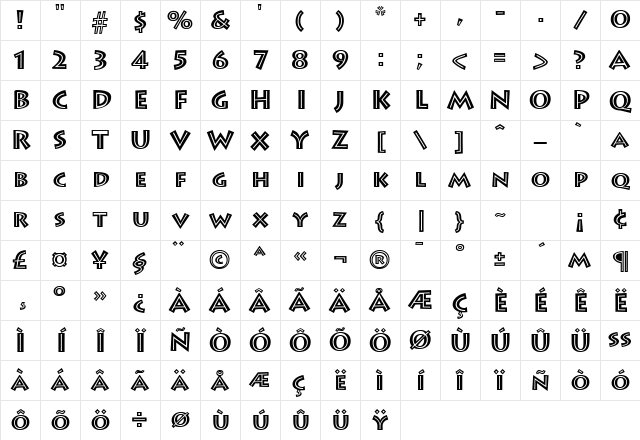
Complete LeeToscaniniInlineSH Regular glyph index. Displaying only characters natively supported by LeeToscaniniInlineSH Regular font.
LeeToscaniniInlineSH is built around its visual character rather than neutral utility - its distinctive forms are designed to make an impression at display sizes.
Font Pairing: Pair with a clean neutral sans-serif for body copy to let LeeToscaniniInlineSH's character lead without overwhelming the composition.
Pro Tip: Use LeeToscaniniInlineSH exclusively at display sizes - it was designed to be seen, not read at length. Let a neutral companion handle body copy.